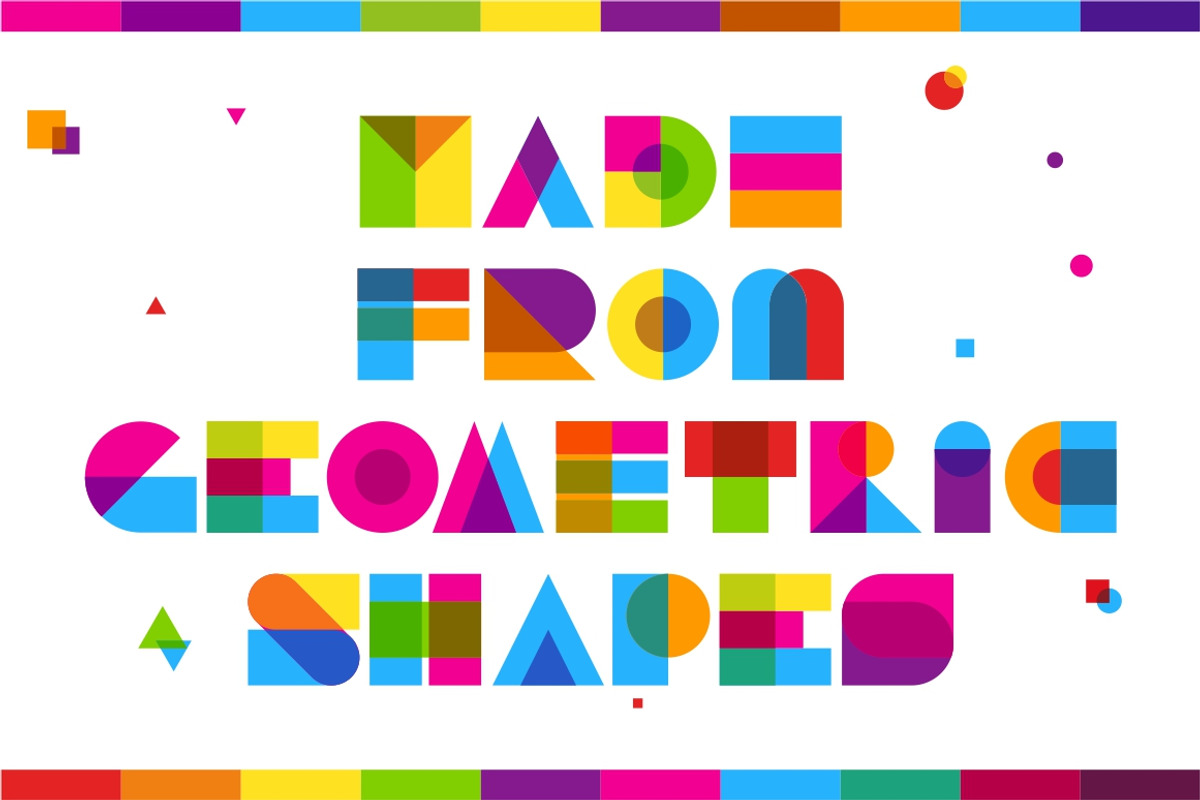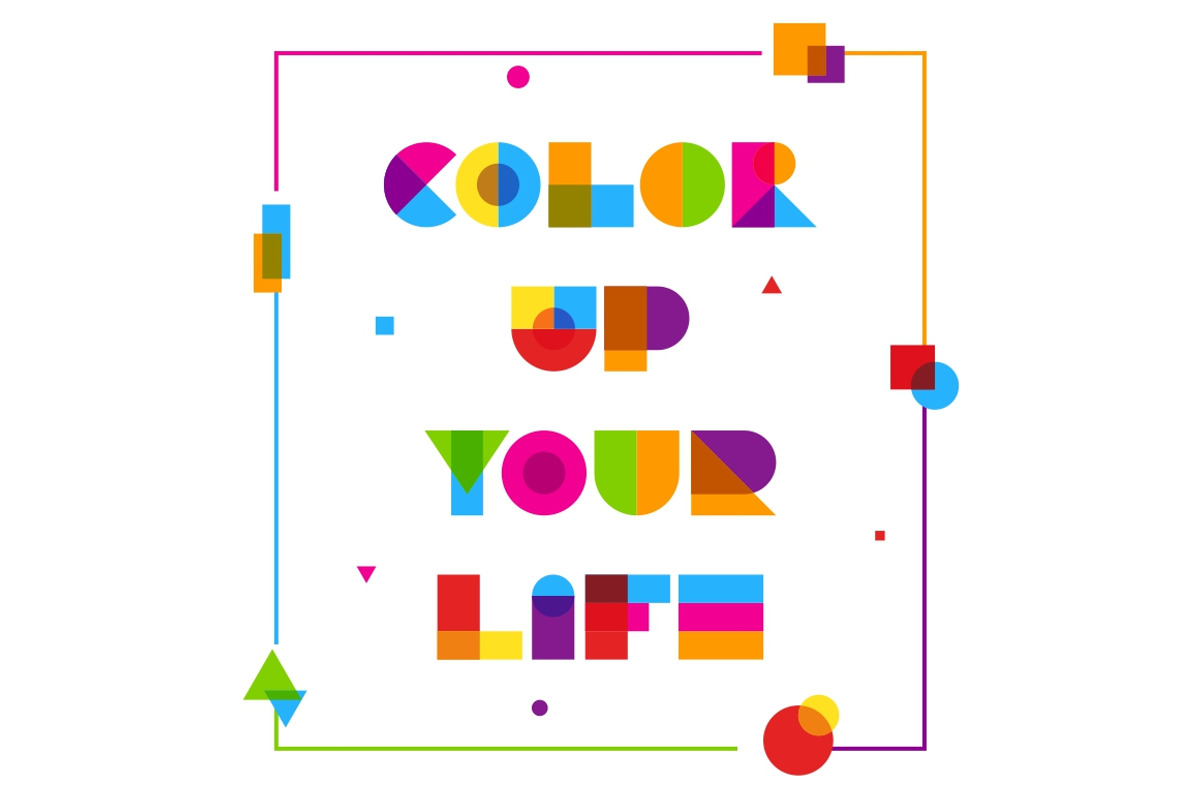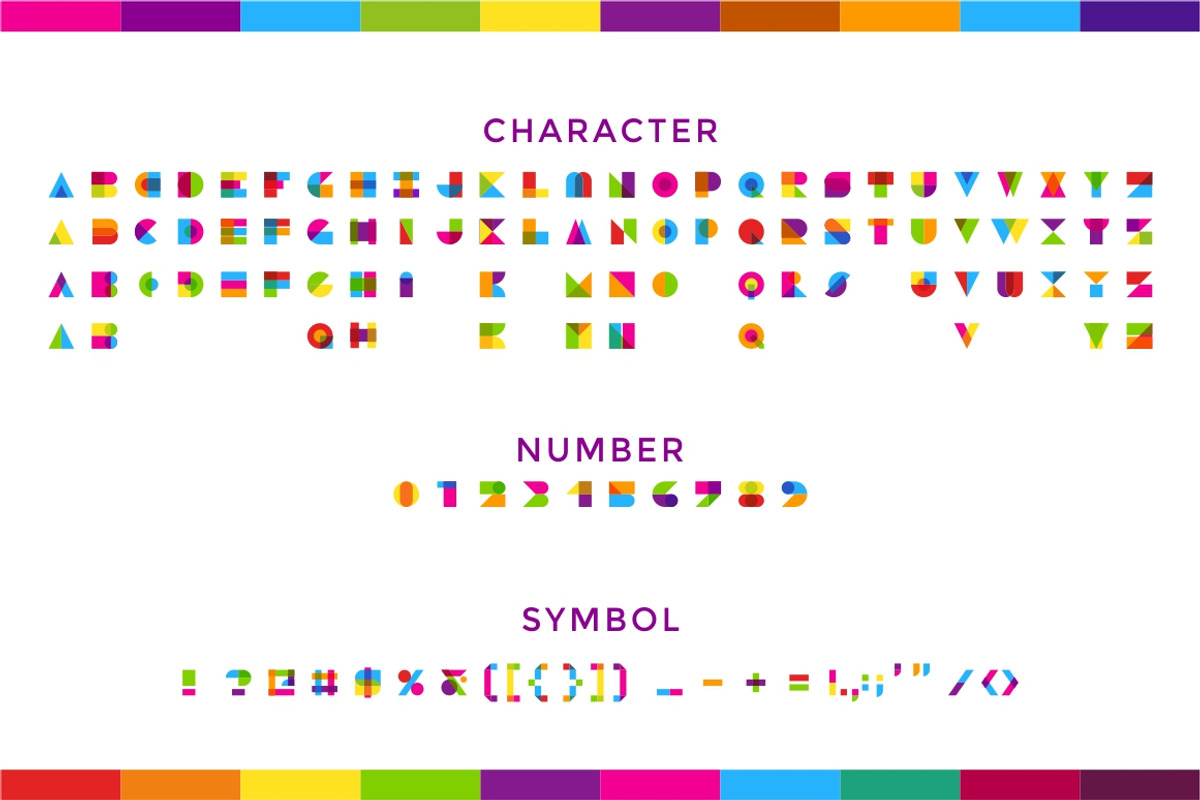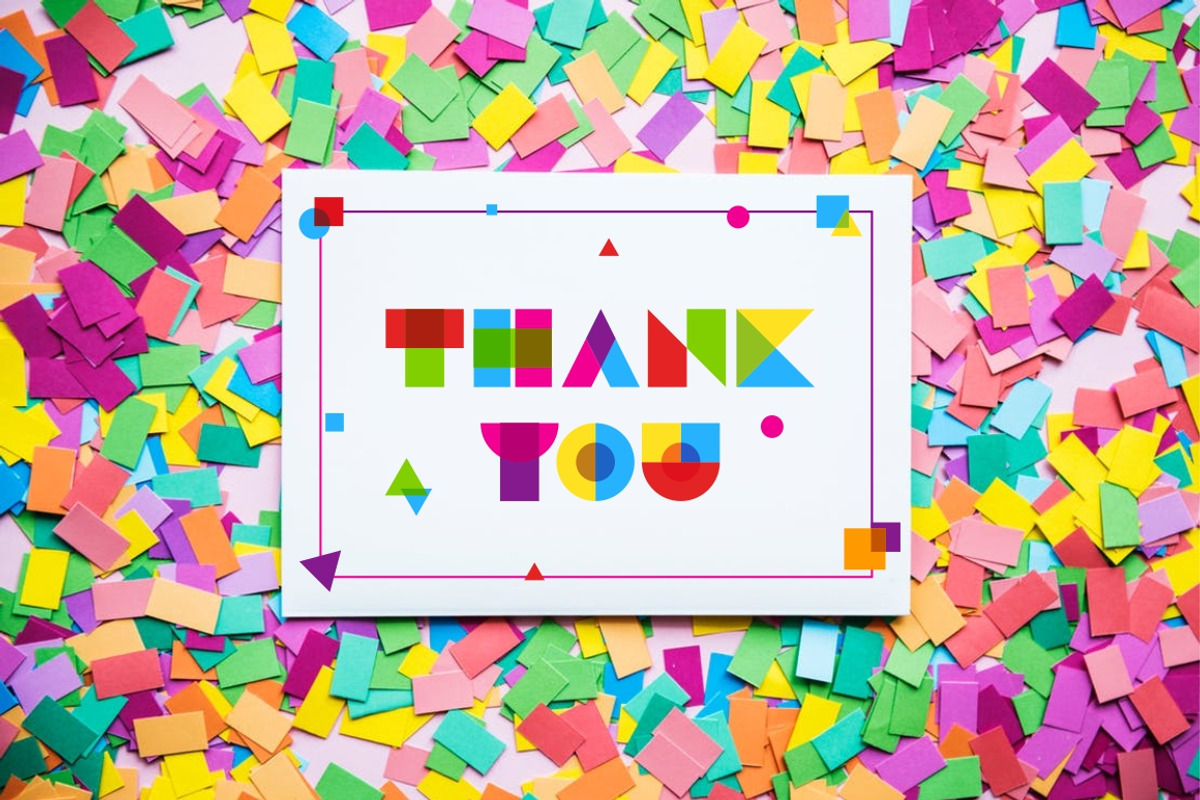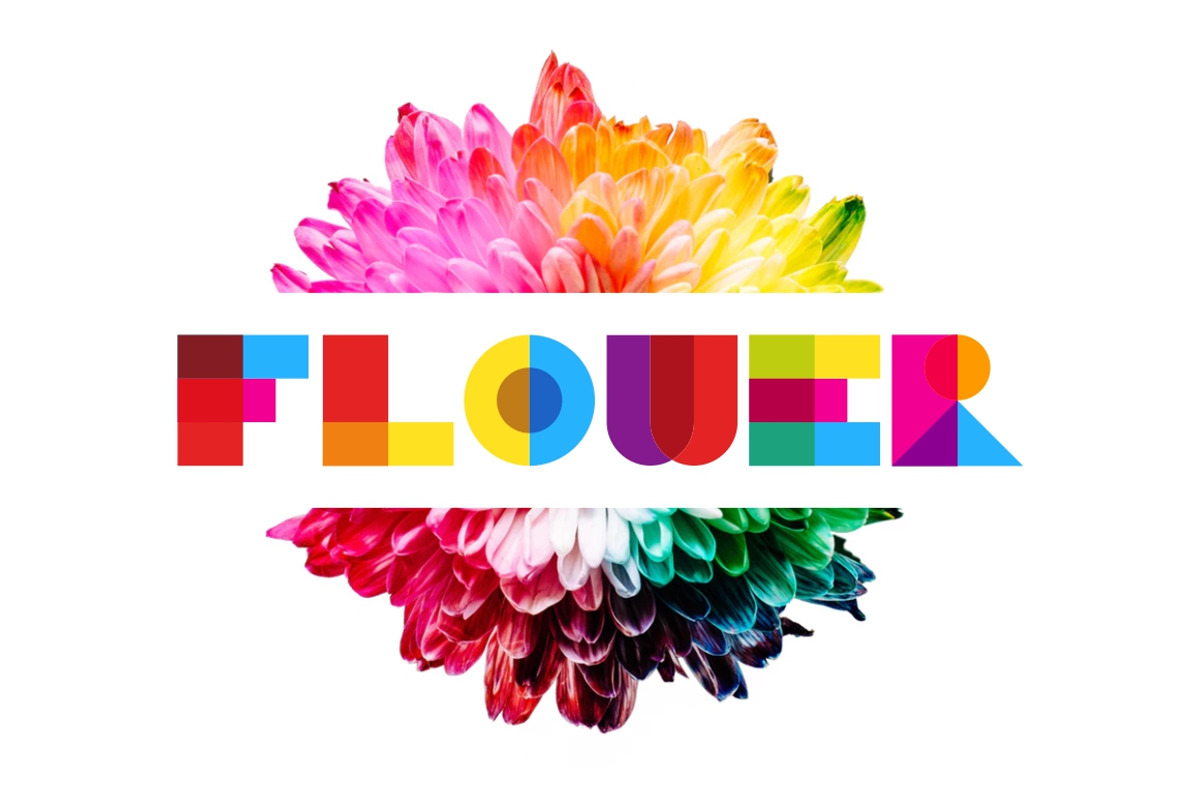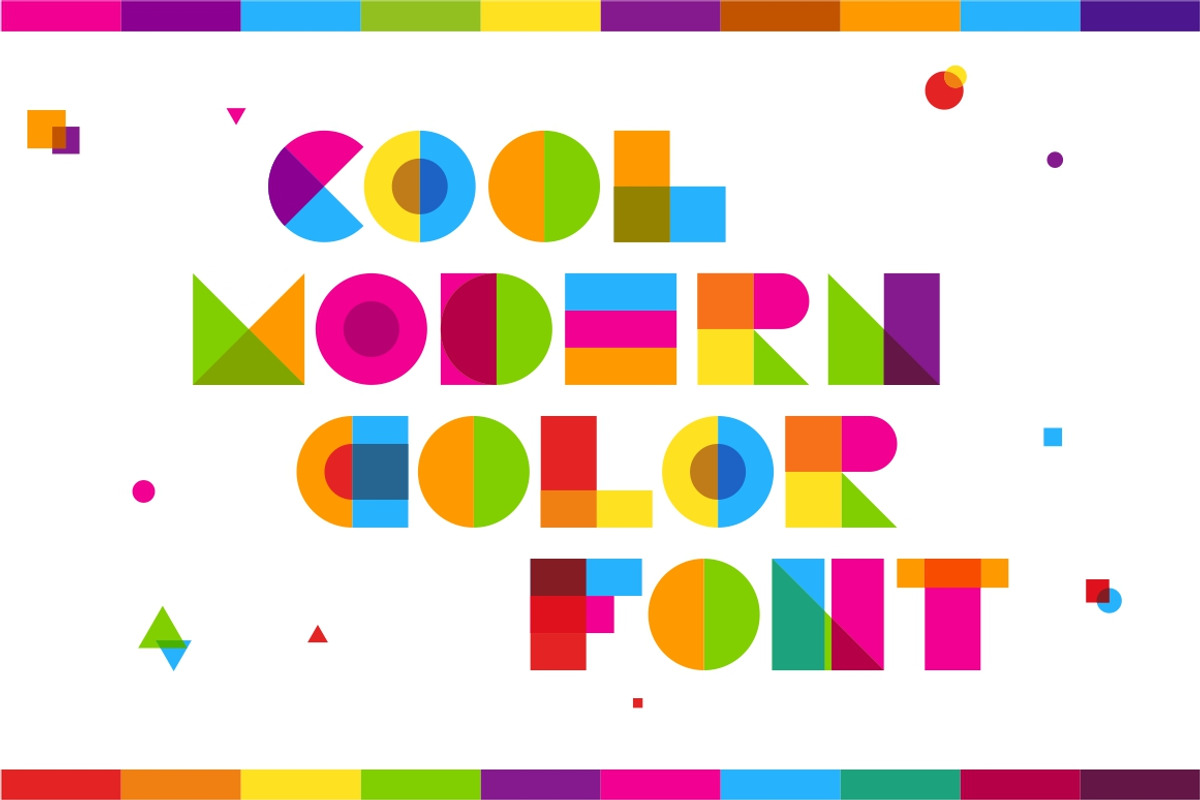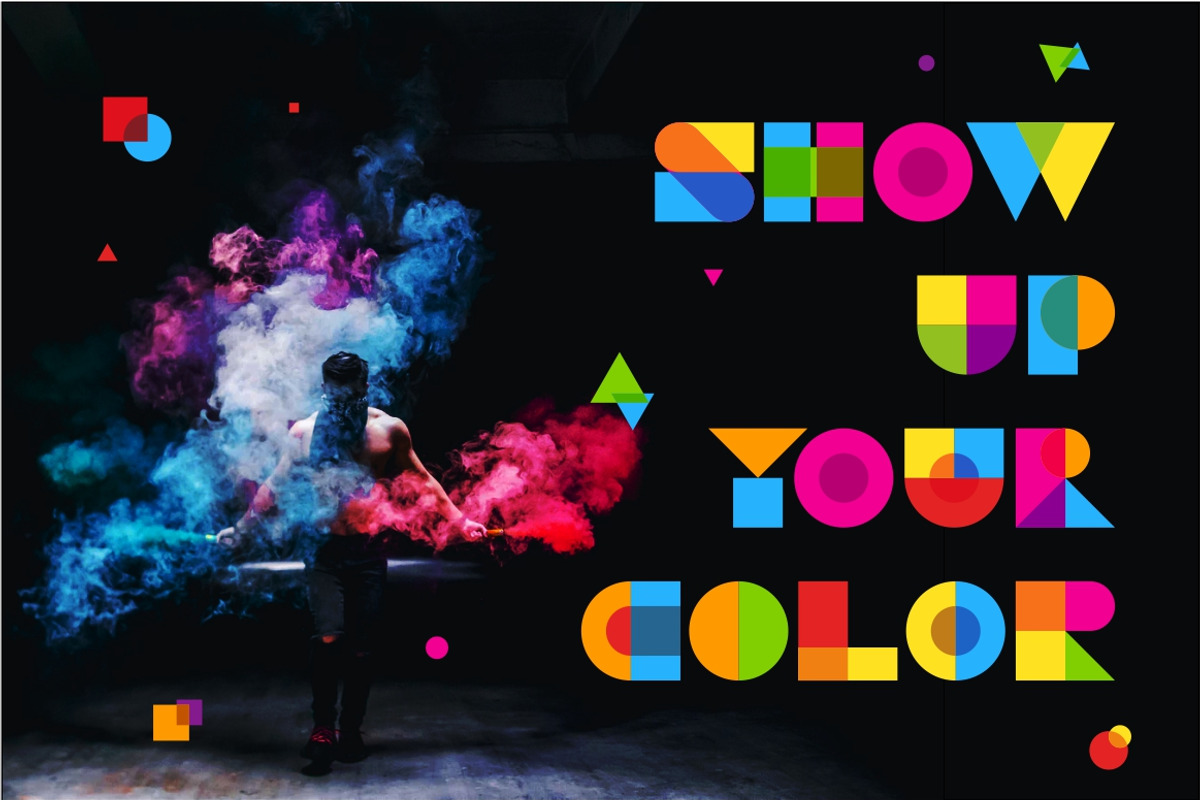
Garis Lengkung - Colorful Font
Garis Lengkung is a very colorful color font. Made from basic geometric field shapes such as circles, squares, triangles, semicircles, etc. And also with color overlay, making this font more modern and cool.
Garis Lengkung is perfect for logos, signature, tagline, Tshirt, handwritten quotes, product packaging, poster, merchandise, social media, labels, branding, greeting cards, etc.